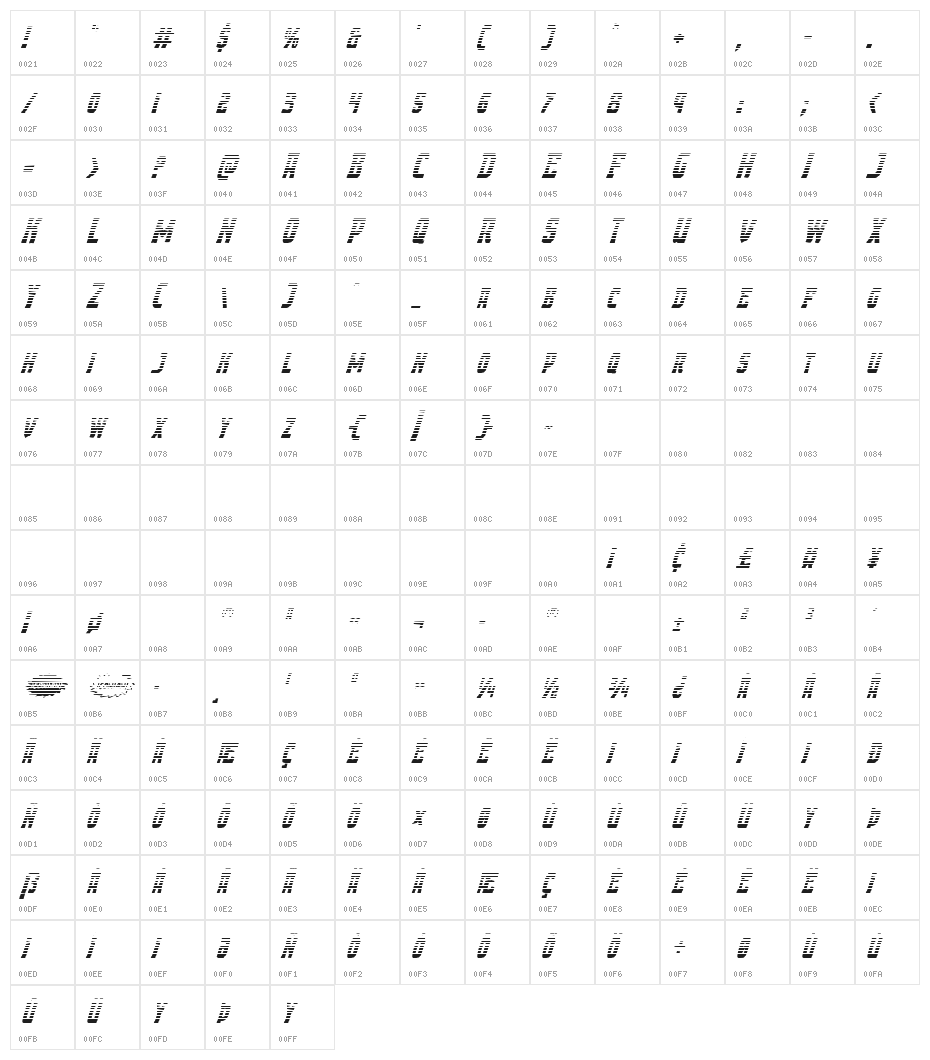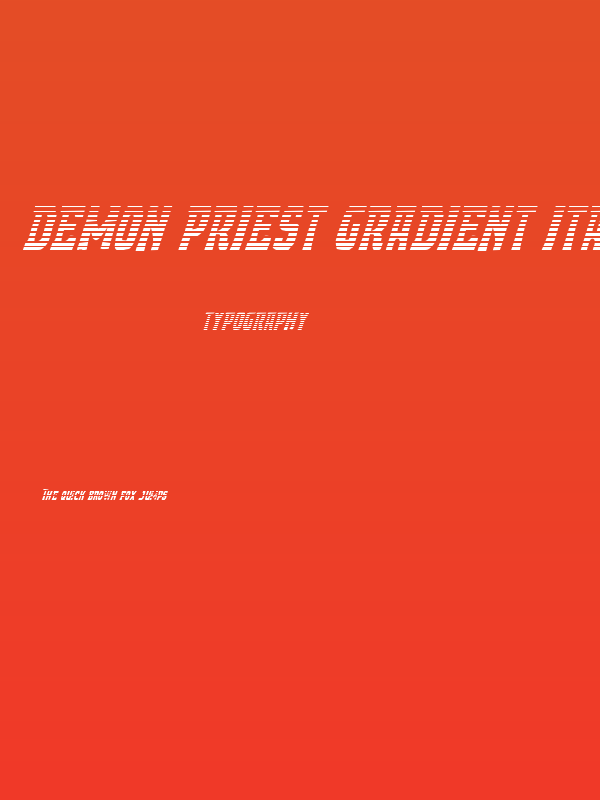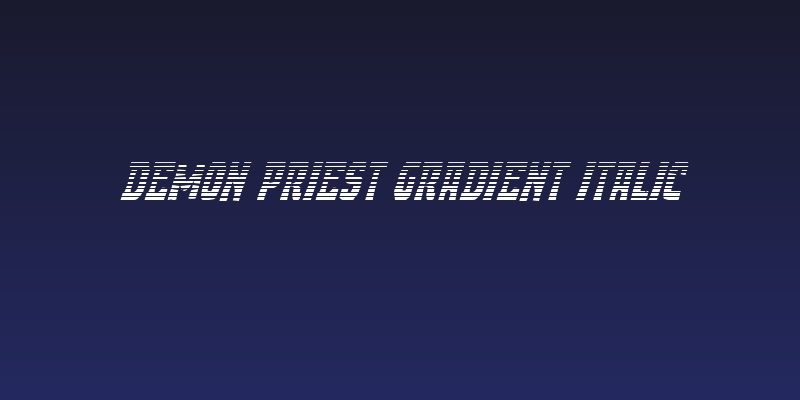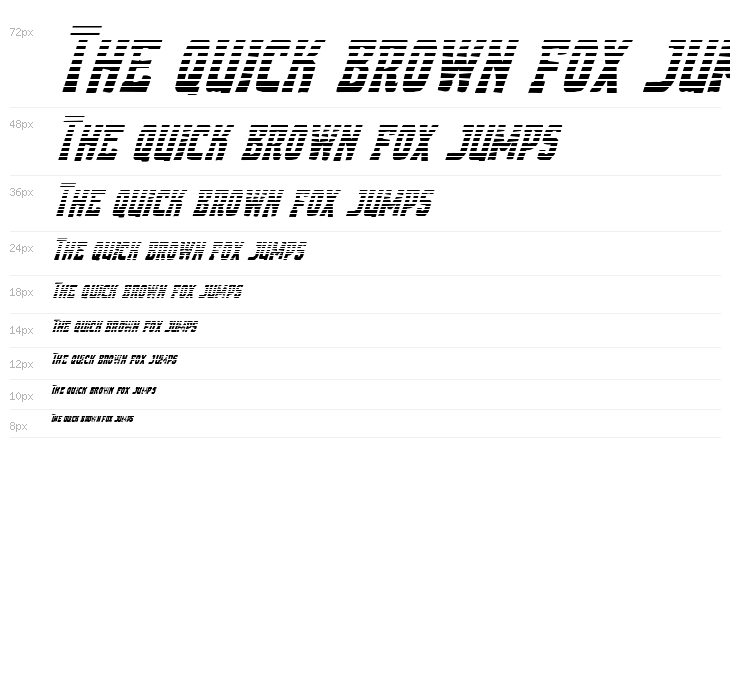
Demon Priest Gradient Italic Font
Demon Priest Gradient Italic Description
This font features a bold, italicized style with a distinctive gradient effect created by horizontal stripes. The uppercase and lowercase letters maintain a consistent slant, giving the typeface a dynamic and energetic appearance. The characters are constructed with a modern, futuristic aesthetic, making them suitable for attention-grabbing designs. The numerals and special characters follow the same stylistic approach, ensuring uniformity across all glyphs. The font's unique design is ideal for projects that require a strong visual impact.
| Proposed Projects | Ideal for sports branding, futuristic posters, video game titles, and dynamic logo designs. |